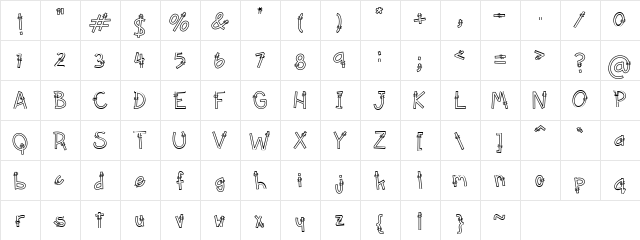
LD Double Rings Regular
Design Context for LD Double Rings Typeface
LD Double Rings is a composed and adaptable typeface that performs quietly and consistently across a wide range of design contexts.